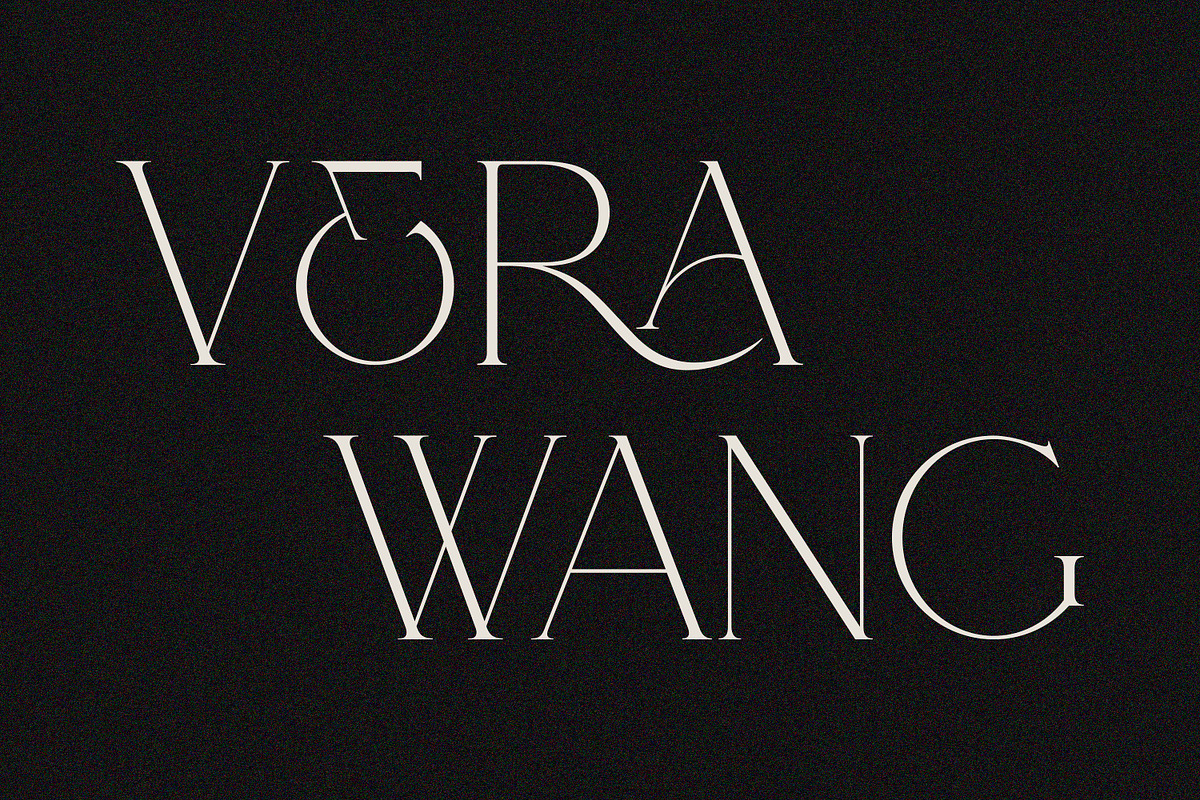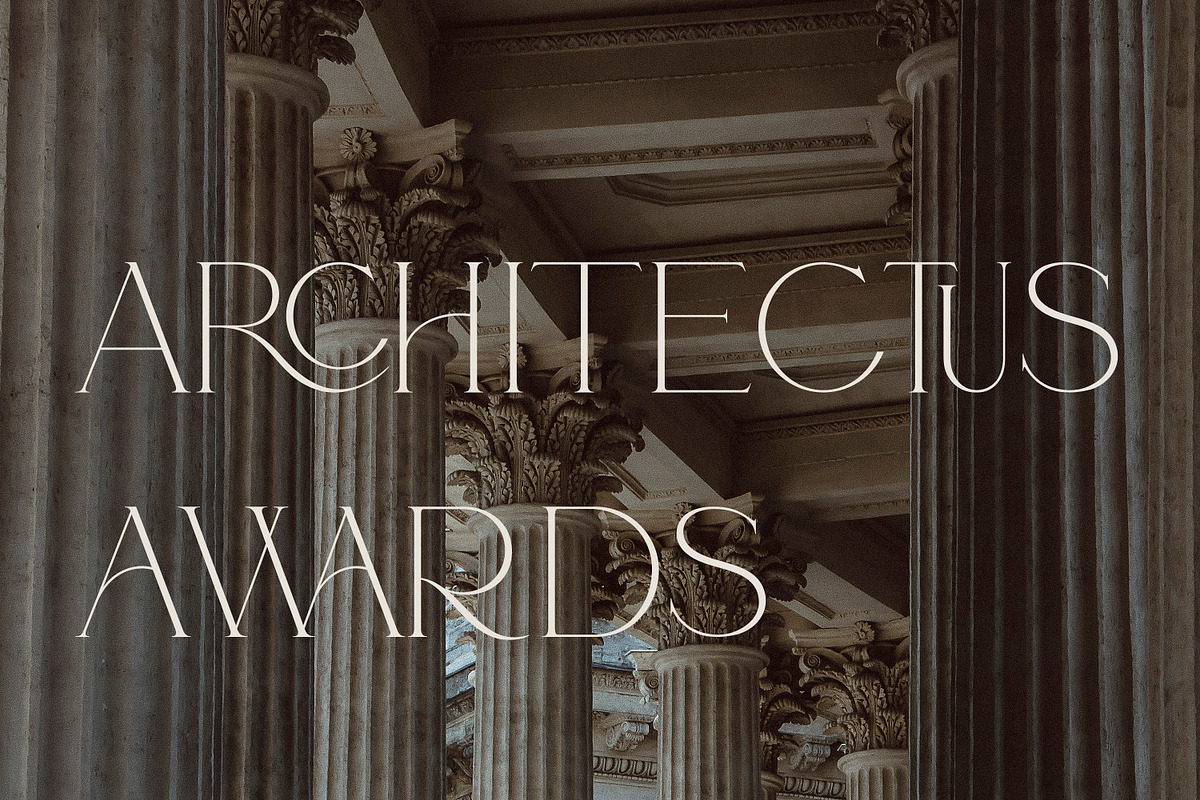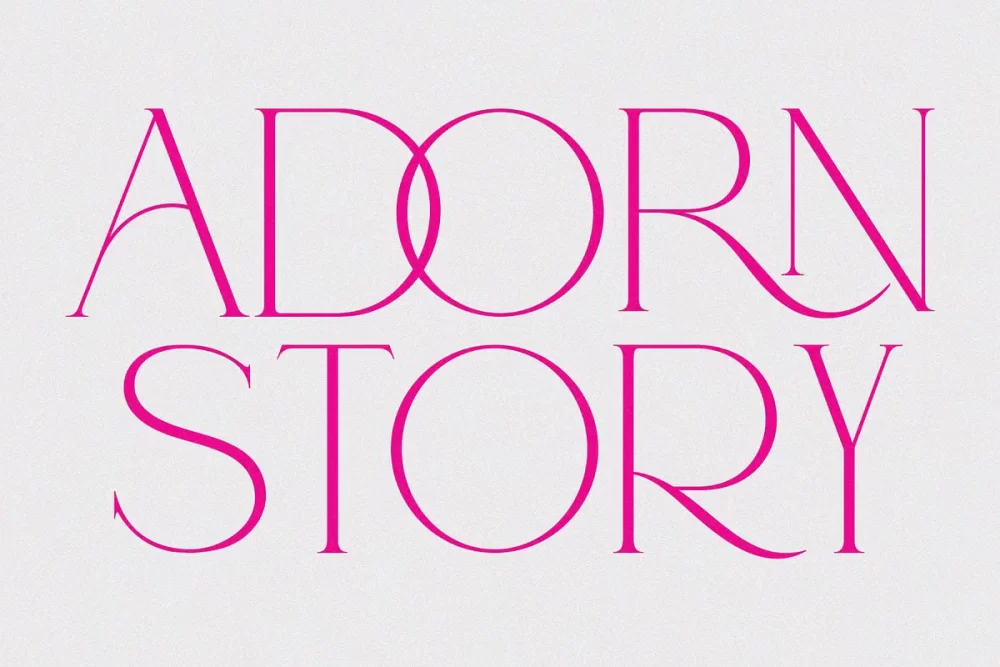
Adorn Story Font
Adorn Story is an elegant and stylish serif font. It fits perfectly with invitation card designs, company logos, movie titles, movie names, business cards, book titles, brand names and various other designs.